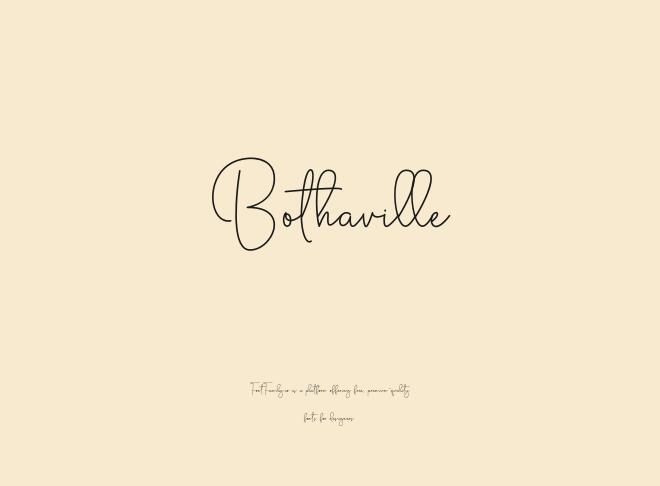
Bothaville Font
Bothaville Font is a remarkable handwritten script typeface, exuding elegance and versatility. Designed by Fontastico, this font carries a unique blend of sophistication and creativity, making it perfect for digital and print designs. Its fluid, decorative strokes mimic the beauty of handcrafted calligraphy, while maintaining a modern appeal. The font's distinct style makes it comparable to popular script fonts, yet it stands out with its unique charm. Ideal for branding, wedding invitations, book covers, and social media graphics, Bothaville Font is a great choice for designers seeking to add a touch of elegance and personality to their work. Its free license for personal use adds to its appeal, making it a must-have in any designer's font library.